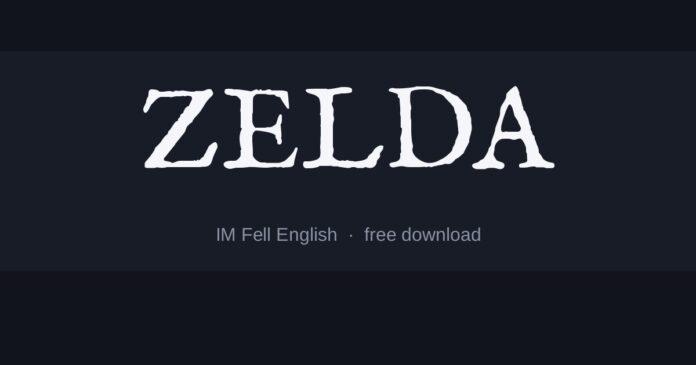
Zelda Font
What font is the Zelda logo?
The series logo is custom drawn: serif capitals with exaggerated pointed serifs and a sword worked into the initial letter, redrawn for almost every entry.
Underneath the decoration it is a fairly conventional engraved serif, which is what makes it approachable with free faces.
The fonts here
• IM Fell English is the closest in character — an old printed serif with rough edges and real age to it.
• Cinzel is cleaner and more monumental, closer to the modern entries.
• Minya Nouvelle Rg is lighter and slightly irregular, good for in-world text and item names.
Where the style comes from
Fantasy design borrows from medieval manuscripts and Renaissance printing because those forms are already associated with age and authority in most readers’ minds, without needing explanation.
The pointed serifs are the fantasy signal. A modern serif with flat serifs reads as a law firm no matter what else you do to it.
Setting it well
• Capitals for the title, mixed case for anything longer — pointed serifs get tiring quickly
• Gold with a dark outline is the series convention and carries more recognition than the letterforms
• Add the flourish to one letter only; decorating every letter turns it into a wedding invitation